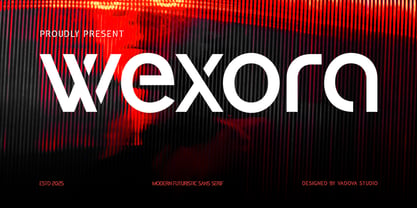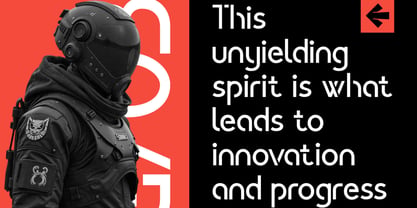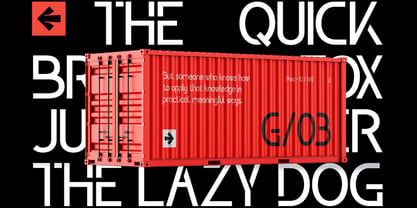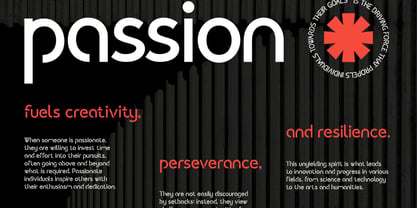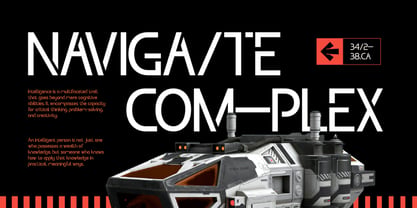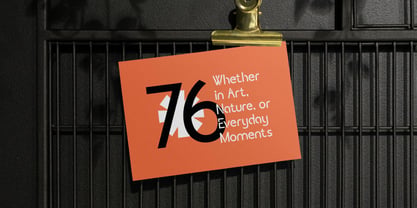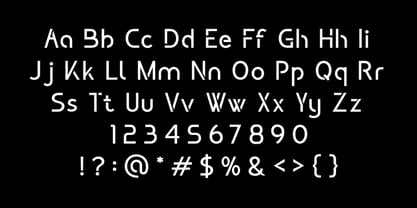
Wexora
Wexora is a striking modern futuristic sans serif typeface designed to make a bold visual statement. Featuring sleek geometric shapes, sharp terminals, and a tech‑inspired aesthetic, Wexora blends contemporary design with a subtle avant‑garde edge. Its clean, distinct letterforms convey clarity and confidence, while unique stylistic details add character and memorability. This font includes a full set of uppercase and lowercase characters, numerals, punctuation, and basic multilingual support making it versatile for a wide range of creative and professional applications. Wexora performs exceptionally well in both large display settings and more compact typographic compositions, adding a modern and dynamic voice wherever it appears.